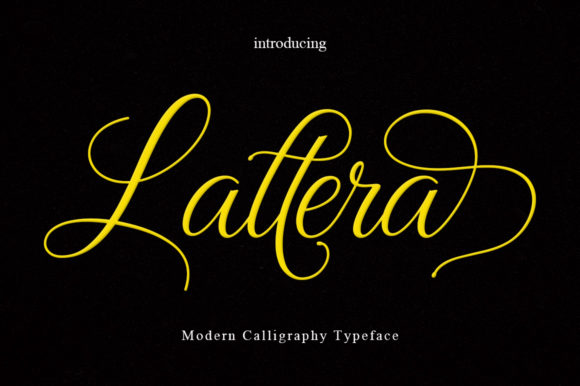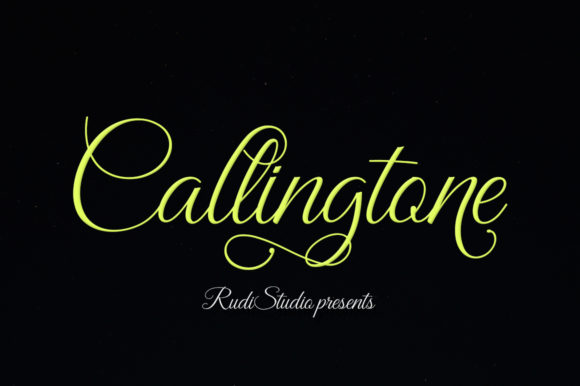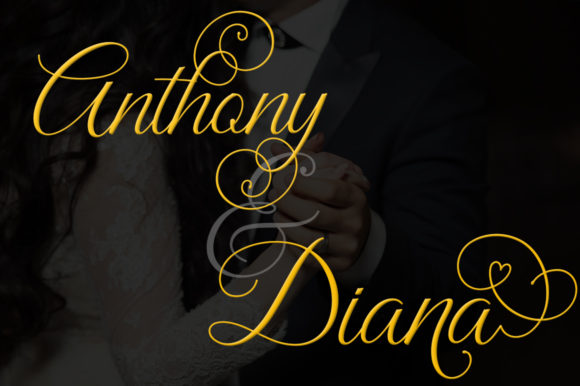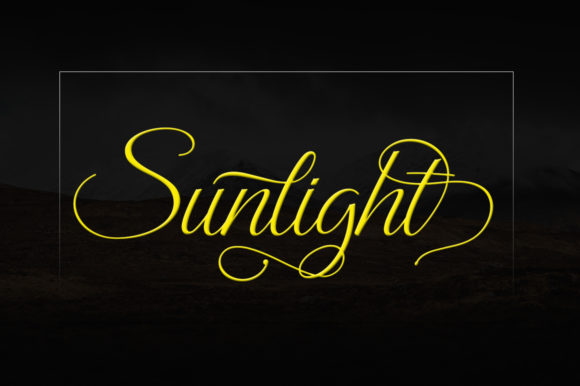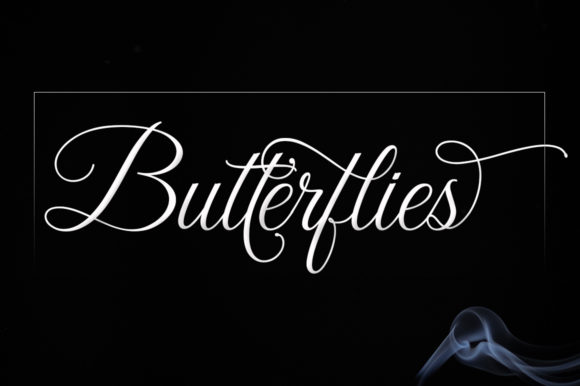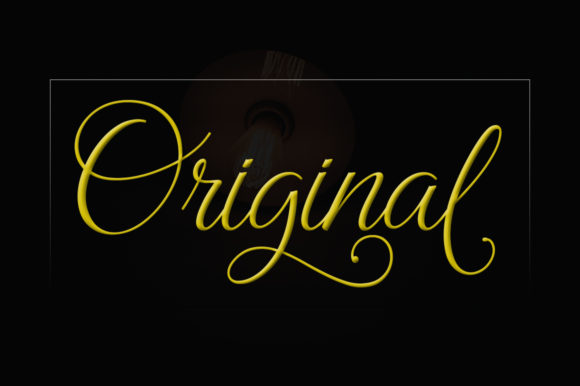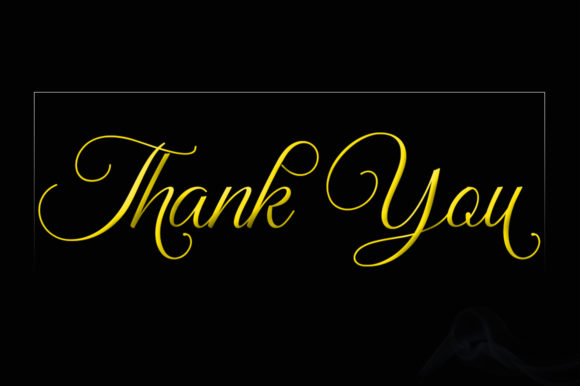
HomeScript FontsLattera Font Script Fonts Lattera Font FacebookXPinterestWhatsApp Lattera Font Poster 2 Lattera Font Poster 3 Lattera Font Poster 4 Lattera Font Poster 5 Lattera Font Poster 6 Lattera Font Poster 7 About Lattera Font Lattera is a modern script font made with a delicate touch. Fall in love with its swirly flourishes! DOWNLOAD NOW People also explored Famosa Boldyguard Font Maxeva Font Rosemary Font Dez Now Sans Eager to Please Font Yonkao Font Anisha Font Aston Ranger Font 318 0 TagsLattera Font Previous articleSunnylane FontNext articleHiestoria Font LEAVE A REPLY Cancel reply Comment: Please enter your comment! Name:* Please enter your name here Email:* You have entered an incorrect email address! Please enter your email address here Website: Save my name, email, and website in this browser for the next time I comment. Personal Use Free Cherry Ai Personal Use Free Read more about this font Amellis Path Personal Use Free Read more about this font Breather Personal Use Free Read more about this font BD TinyFont Personal Use Free Read more about this font BLOG Fonts That Capture the Spirit of New York City New York City is more than just a place—it’s an experience, a rhythm, a visual language... Transform Your Website: Elevate Your Typography with 7 Best Web Font Generators Using Fonts in Digital Marketing: Tips to Strengthen Your Brand Identity Free Fonts Risk: Why Free Fonts Can Be Dangerous for Designers